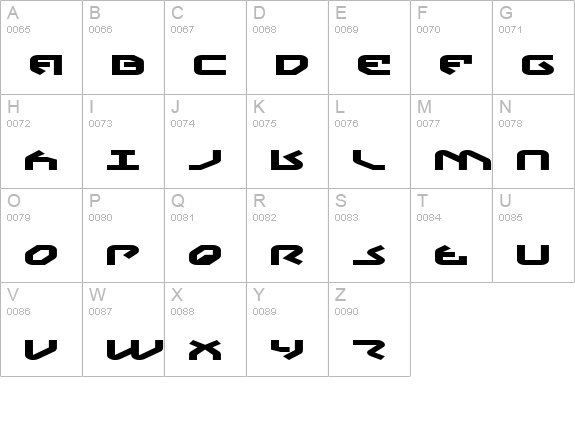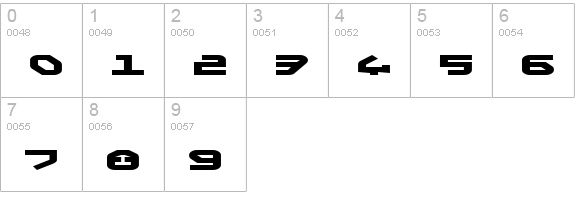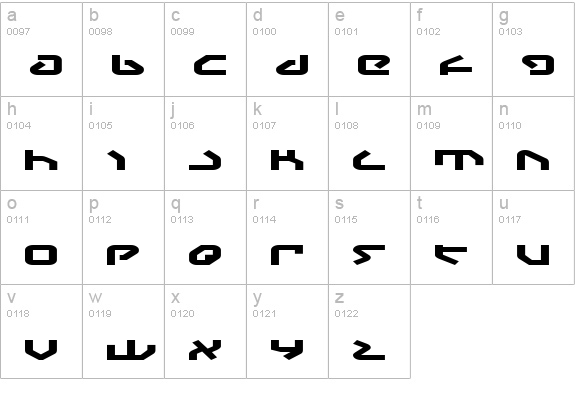
Yahren Expanded is a distinctive, extended-width variant in the Yahren typeface family \xE2\x80\x94 well suited to design and typography projects.
Yahren Expanded font is a stylish and modern typeface that exudes elegance and sophistication. With its sleek lines and distinctive letterforms, this font is perfect for a wide range of design projects, from branding to editorial design. The expanded version of Yahren offers even more versatility and impact, making it a great choice for headlines and titles that need to stand out. What's more, Yahren Expanded font is available for free download at FontsMarket.com, allowing designers and creatives to access this high-quality typeface without any cost. Don't miss out on the opportunity to elevate your designs with the striking beauty of Yahren Expanded font - download it today and let your creativity soar!